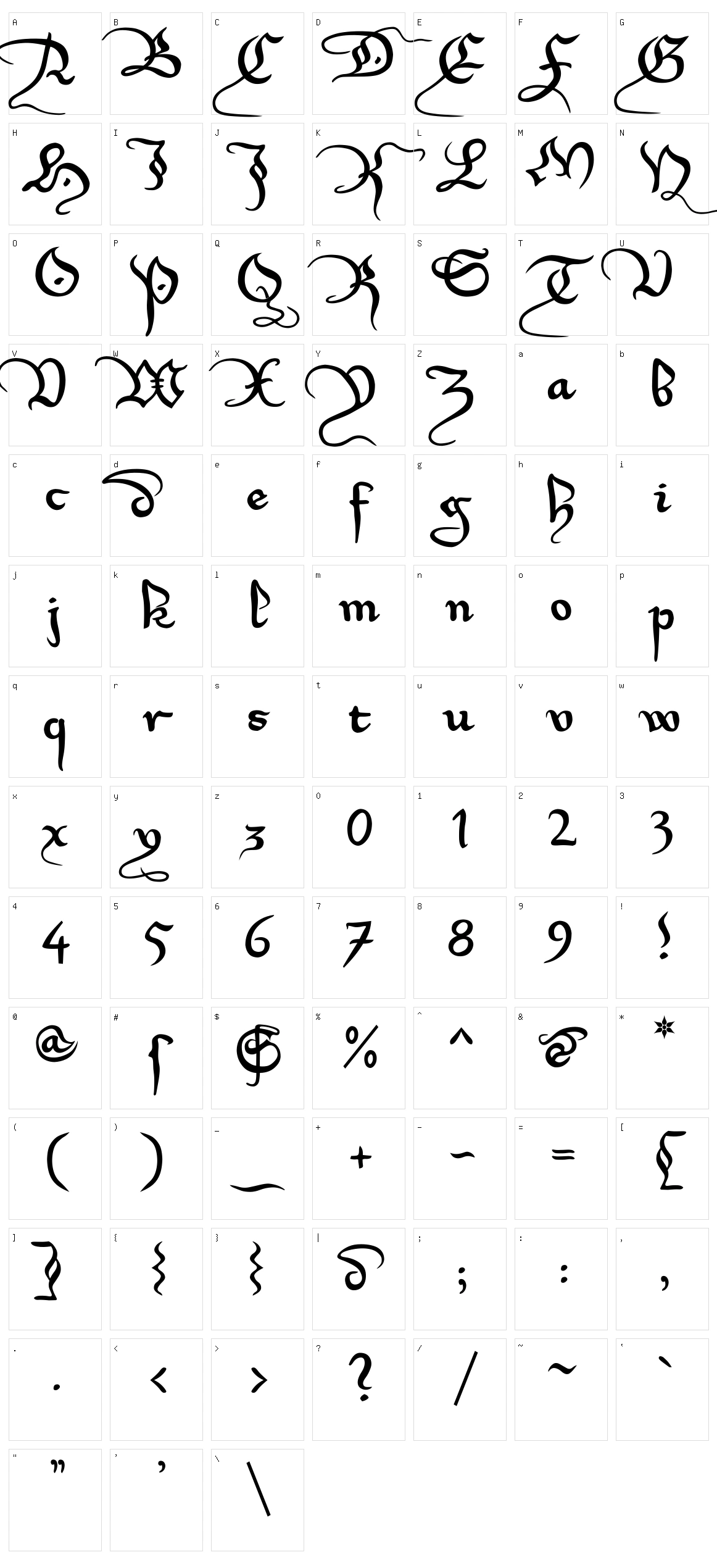
Xirwena 1.1
-- created by Pia Frauss in 2003, with High Logic's FontCreator Program; updated in 2005 --
Since I first published the Xirwena font, I've been so lucky as to discover that the little sample of "Florentine Bastarda", on which its lower case characters are based, stems from a manuscript copy of Dante's Divina Commedia, written in 1337, and commonly referred to as the Codex Trivulziano. The upper case glyphs, on the other hand, have been inspired by German Bastarda writings from various sources; they are no exact matches, though.
There is no number sign in this font. In its place, you'll find a long s. Equally, you'll find a less space-consuming d on the bar sign, as well as ld and ll on the fi and fl keys.